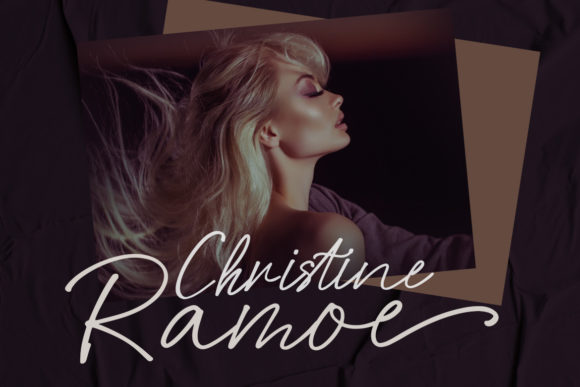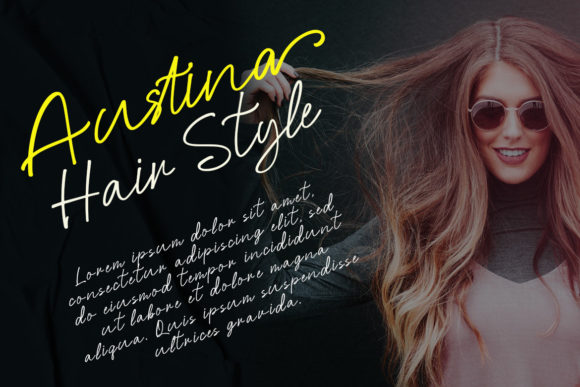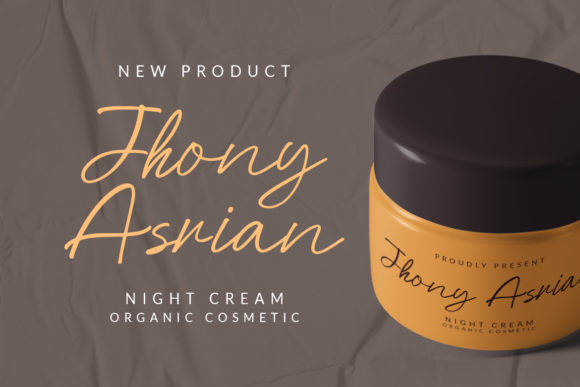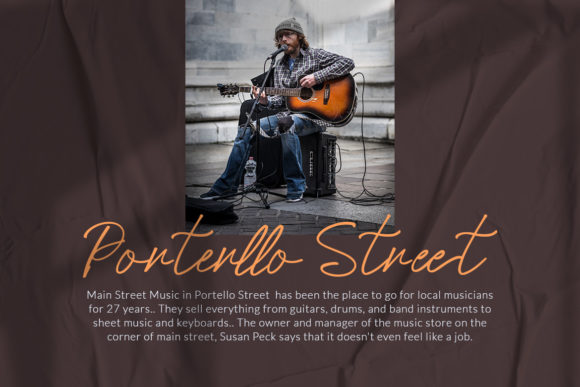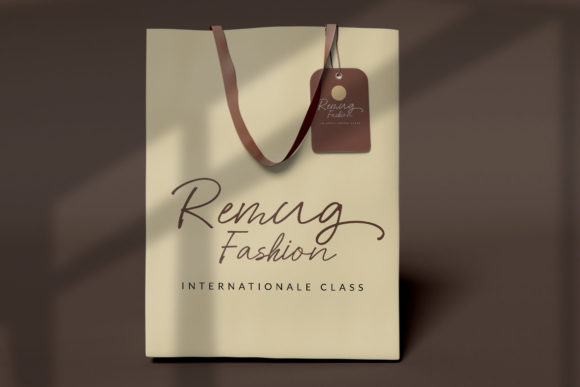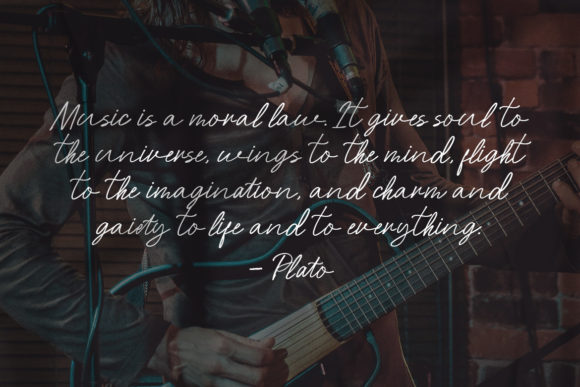
Blessing Willson Font: Elevate Your Designs with Elegance and Sophistication
In the world of typography, few fonts manage to capture the essence of vintage charm and elegance as beautifully as the Blessing Willson font. This delicate, vintage-styled, and relaxed script font has been making waves among designers and crafters alike, and for good reason. With its authentic characters and versatile nature, Blessing Willson is the perfect addition to any design project that requires a touch of sophistication and customization.
The Characteristics of Blessing Willson Font
Blessing Willson is a script font that exudes elegance and refinement. Its delicate strokes and relaxed style give it a unique, hand-crafted feel that is reminiscent of traditional calligraphy. The font’s vintage style is characterized by its classic letterforms, subtle imperfections, and a sense of nostalgia that evokes memories of a bygone era.
One of the standout features of Blessing Willson is its authentic characters. Each letter has been carefully crafted to ensure that it is instantly recognizable, yet subtle enough to blend seamlessly with the rest of the text. This attention to detail makes Blessing Willson a versatile font that can be used in a wide range of design applications.
Uses of Blessing Willson Font
So, where can you use Blessing Willson font? The possibilities are endless! Here are some popular design projects that this beautiful font is perfectly suited for:
- Wedding Invitations: Add a touch of romance and elegance to your wedding invitations with Blessing Willson. Its delicate strokes and vintage style make it the perfect choice for formal wedding announcements.
- Thank You Cards: Express your gratitude in style with Blessing Willson. This font is ideal for creating beautiful, hand-crafted thank you cards that will make a lasting impression.
- Quotes: Add a touch of sophistication to your quotes with Blessing Willson. Its elegant letterforms and classic style make it perfect for creating inspiring and thought-provoking quotes.
- Greeting Cards: Whether it’s a birthday, anniversary, or holiday greeting, Blessing Willson is the perfect font for creating beautiful, customized greeting cards.
- Logos: Create a lasting impression with a logo that features Blessing Willson. Its unique and elegant style makes it perfect for businesses that want to stand out from the crowd.
- Business Cards: Elevate your business cards with Blessing Willson. Its professional and sophisticated style makes it ideal for entrepreneurs, freelancers, and small business owners.
Why Designers and Crafters Love Blessing Willson Font
So, why has Blessing Willson become a favorite among designers and crafters? Here are just a few reasons:
- Unique and Versatile: Blessing Willson is a one-of-a-kind font that can be used in a wide range of design applications. Its versatility makes it a valuable addition to any designer’s toolkit.
- Elegant and Sophisticated: This font exudes elegance and sophistication, making it perfect for designers who want to create high-end designs that impress.
- Easy to Read: Despite its delicate strokes, Blessing Willson is surprisingly easy to read, making it perfect for body text and longer design projects.
- Customizable: With Blessing Willson, you can add your own personal touch to your designs. Experiment with different colors, textures, and graphics to create unique and eye-catching designs.
| Font Name | Blessing Willson Font |
| Author | Keristyper |
In conclusion, Blessing Willson font is a beautiful, elegant, and versatile script font that is perfect for designers and crafters who want to add a touch of sophistication to their designs. With its authentic characters, vintage style, and relaxed strokes, Blessing Willson is the perfect choice for a wide range of design applications. Whether you’re creating wedding invitations, thank you cards, or logos, this font is sure to impress. So why wait? Download Blessing Willson today and elevate your designs to new heights!